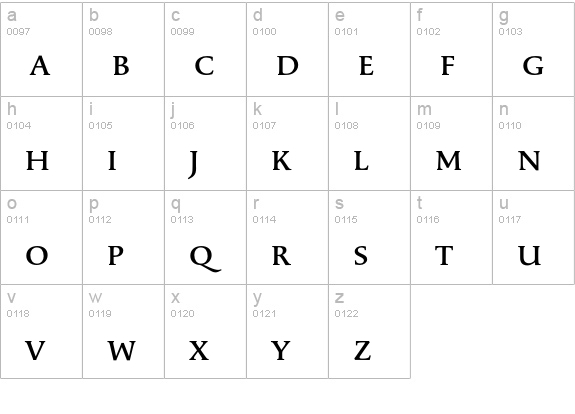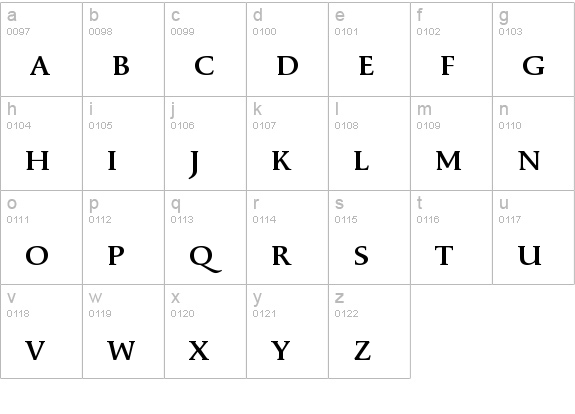
Apolline-RegularSC is a sophisticated and elegant font that exudes timeless charm and modern appeal. Its delicate and graceful letterforms make it ideal for a wide range of design projects, from invitations to branding to editorial designs. The font's unique style and versatility make it a go-to choice for designers looking to add a touch of sophistication to their work. What makes Apolline-RegularSC even more appealing is that it is available for free download at FontsMarket.com. This means that you can easily access this beautiful font and use it in your projects without any cost. Whether you are a seasoned designer or a novice looking to elevate your designs, Apolline-RegularSC is a valuable addition to your font library. Download it today and add a touch of elegance to your next project.